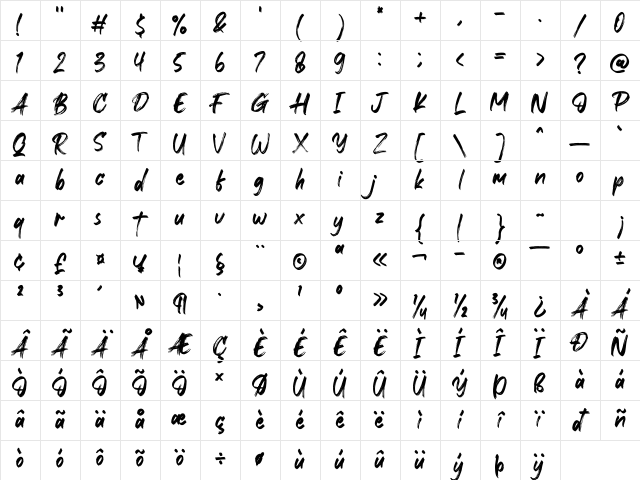
Xantorid Regular Free Font
Xantorid Regular
Foundry: Letterena Studios
Designer: Heru Utama Putra
Design Context for Xantorid
Xantorid is a composed and adaptable typeface that performs quietly and consistently across a wide range of design contexts.